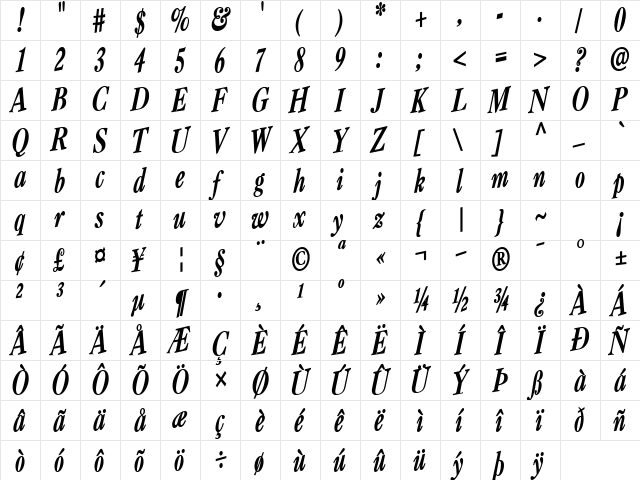
GreenWich4 Bold
Design Context for GreenWich4 Typeface
GreenWich4 takes a measured approach to typography — its balanced proportions and neutral character make it a reliable workhorse for both digital and print work. The heavy weight commands attention and anchors typographic hierarchies.